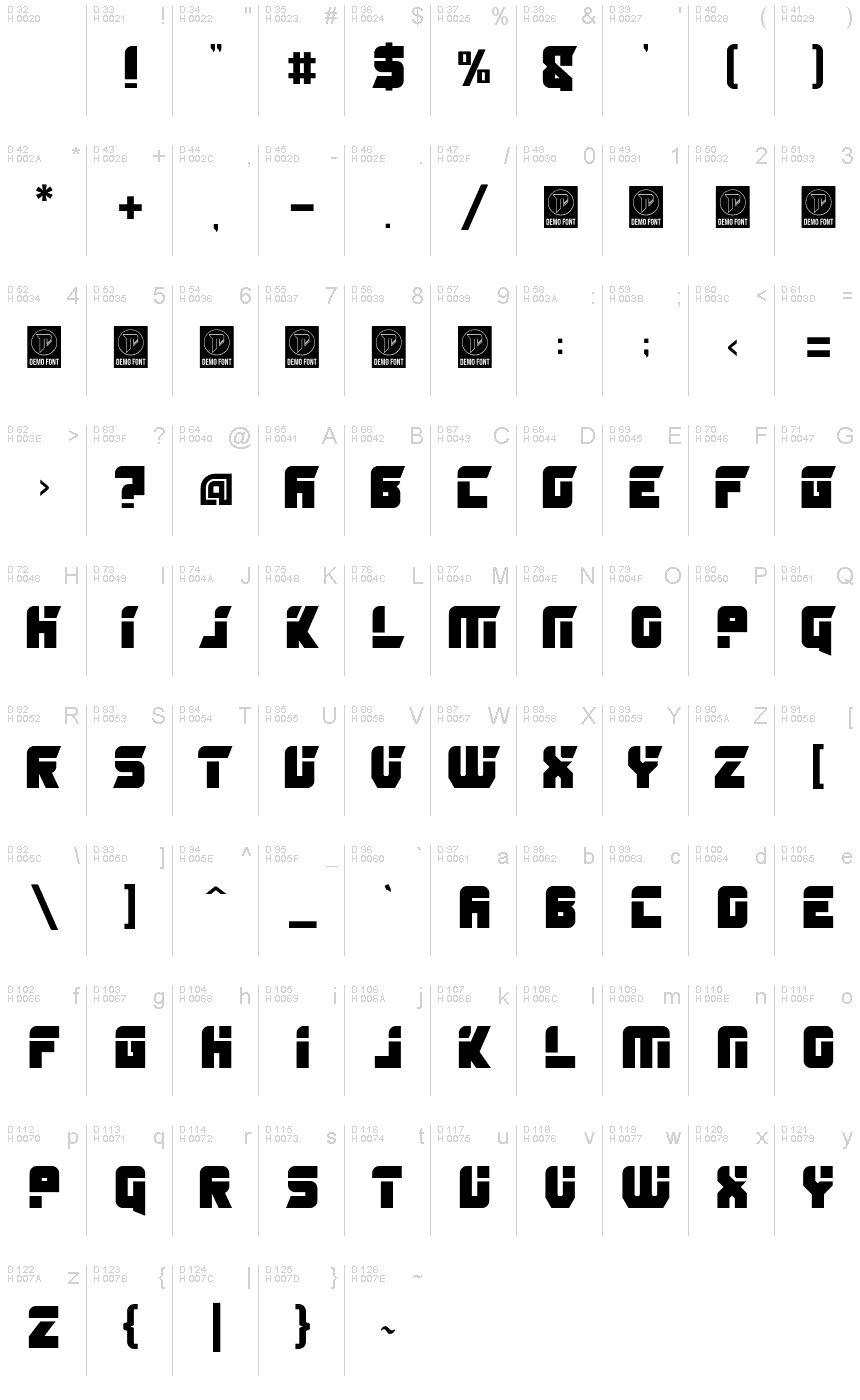
Amonus
Amonus, the brainchild of renowned font designer Ronin Design, is a captivating display font that embodies the essence of futurism. With its extra-bold weight and sleek curves, Amonus stands out as an avant-garde choice for projects requiring a touch of innovation. This typeface is perfect for sci-fi movie posters, cutting-edge technology websites, or even forward-thinking fashion magazines. Amonus commands attention and makes a lasting impression with its futuristic appeal, making it an ideal choice for creative endeavors that aim to push boundaries and embrace the future.